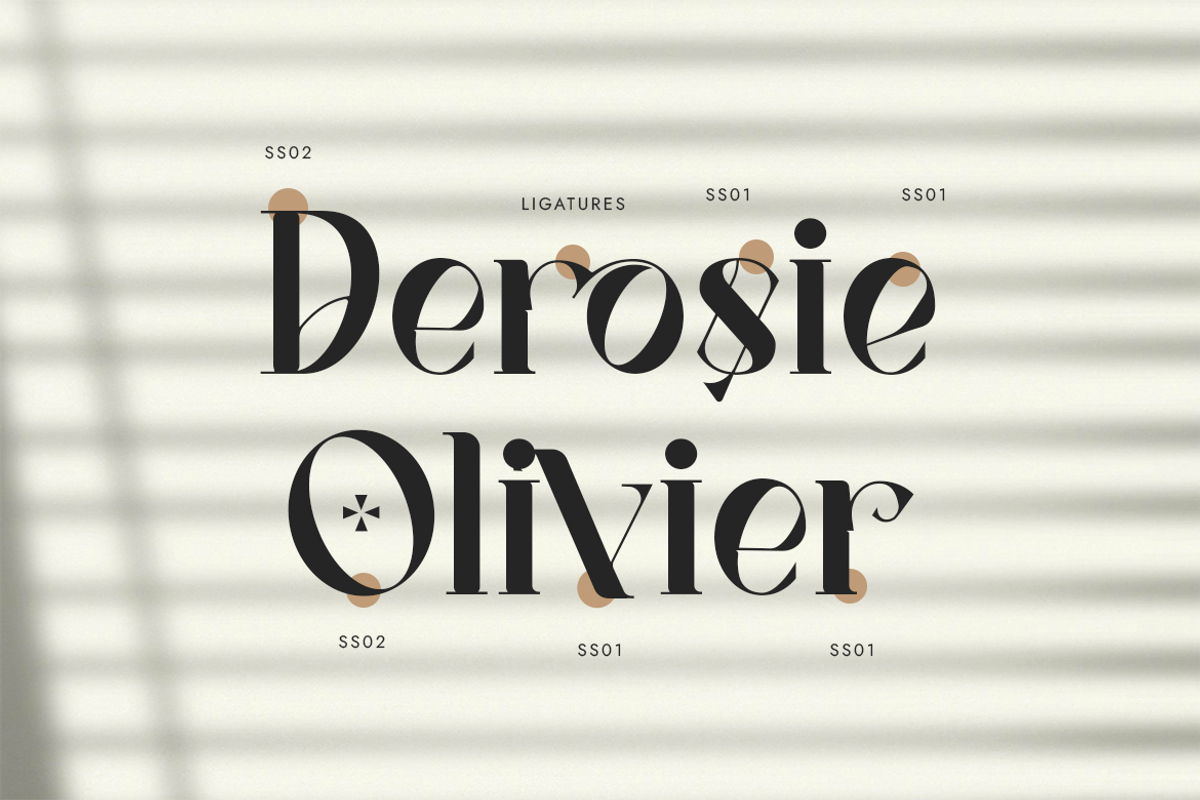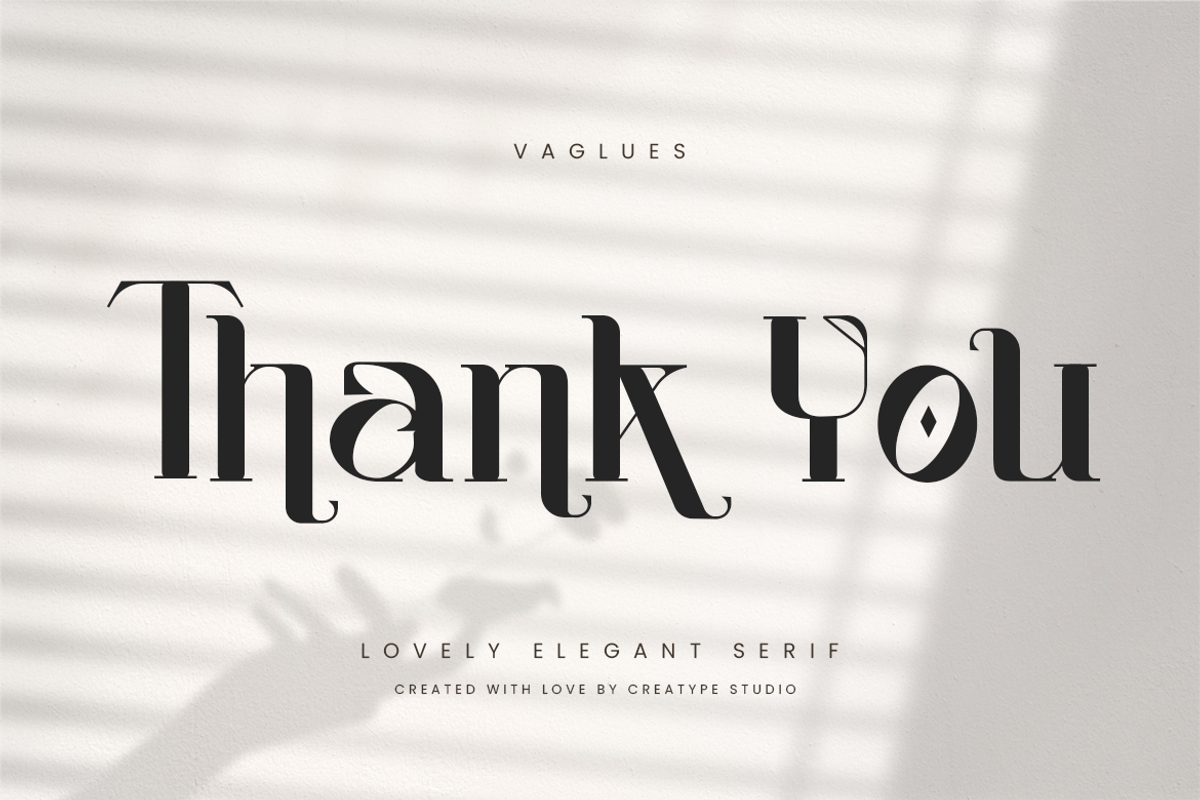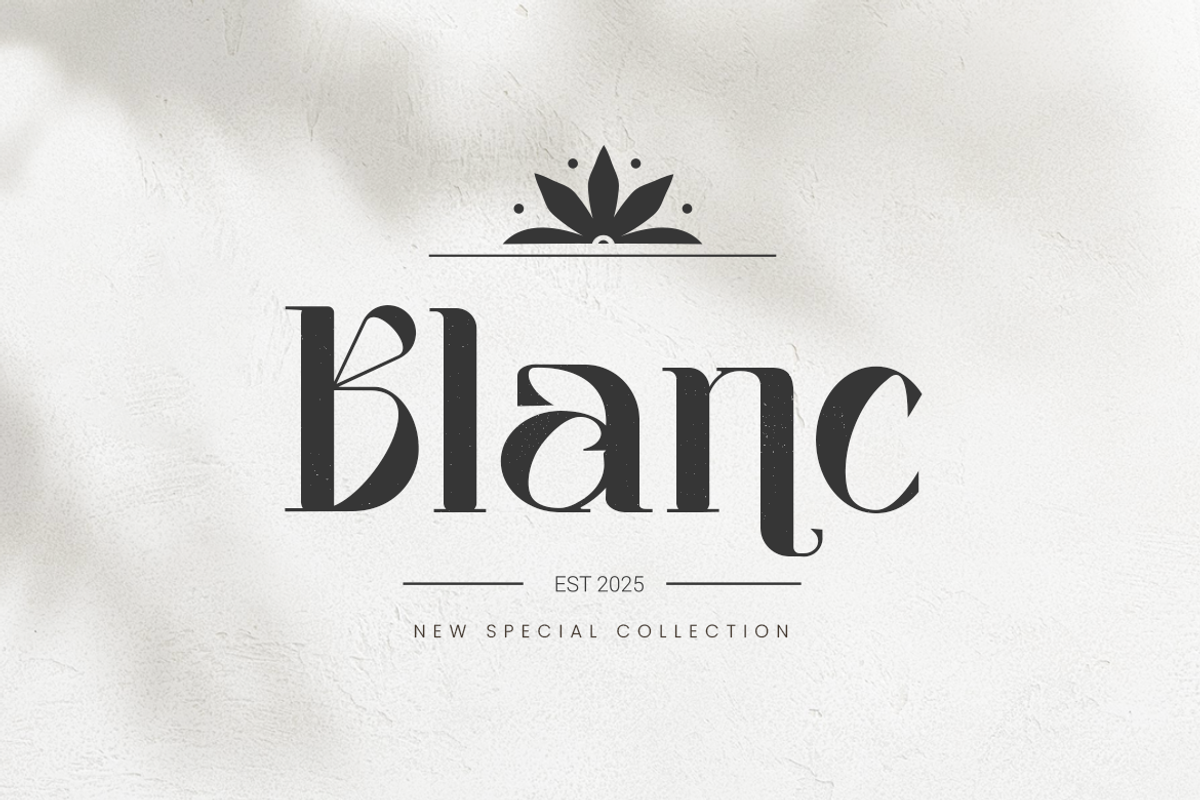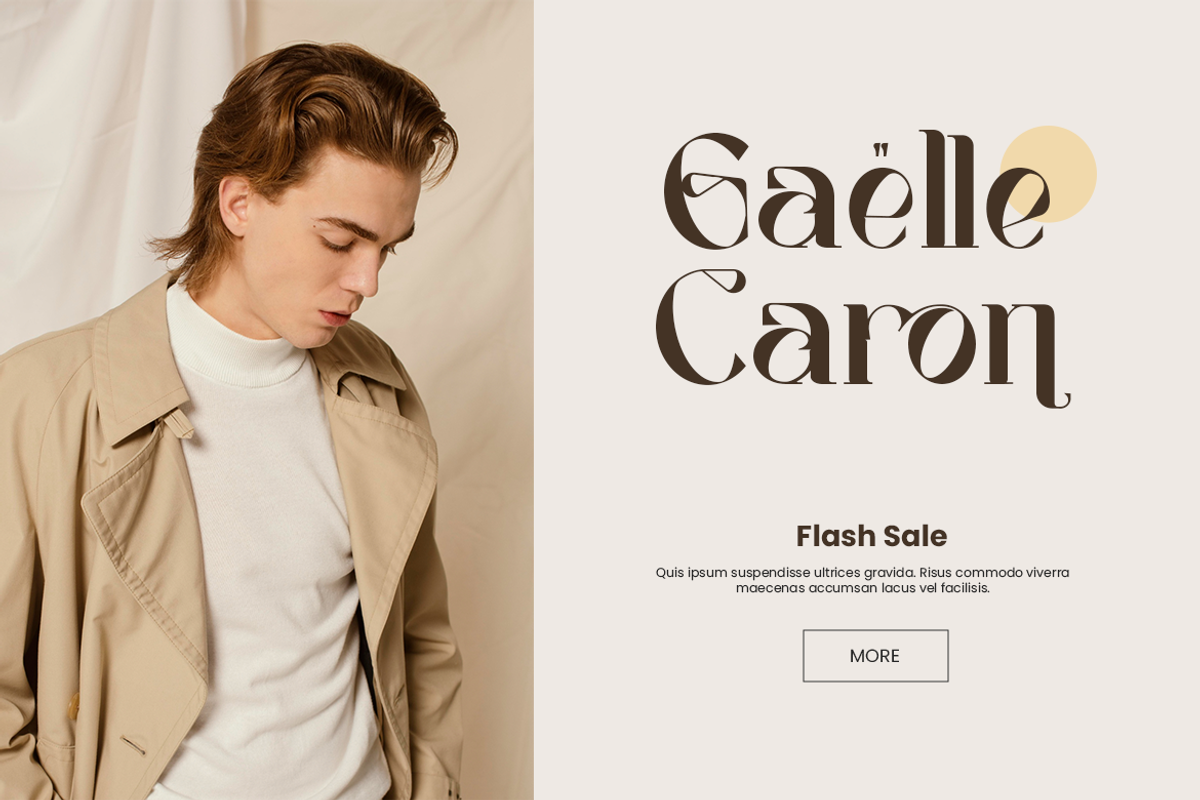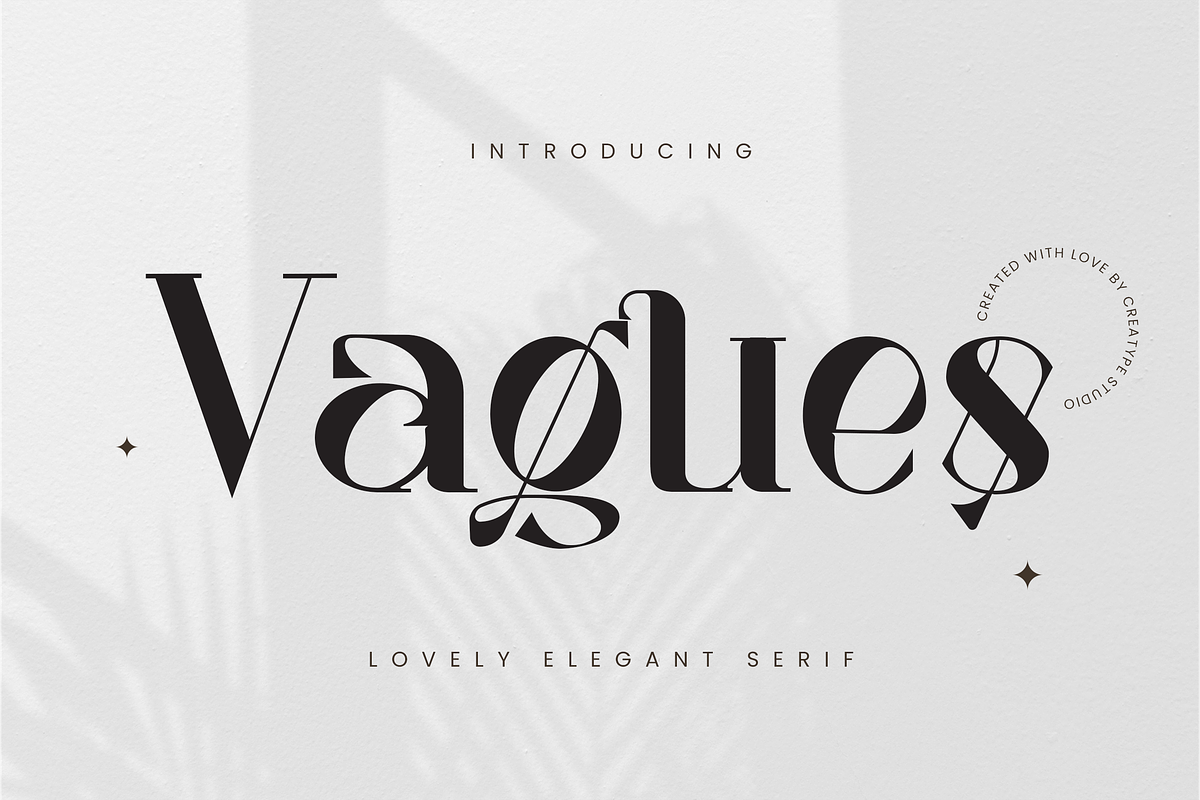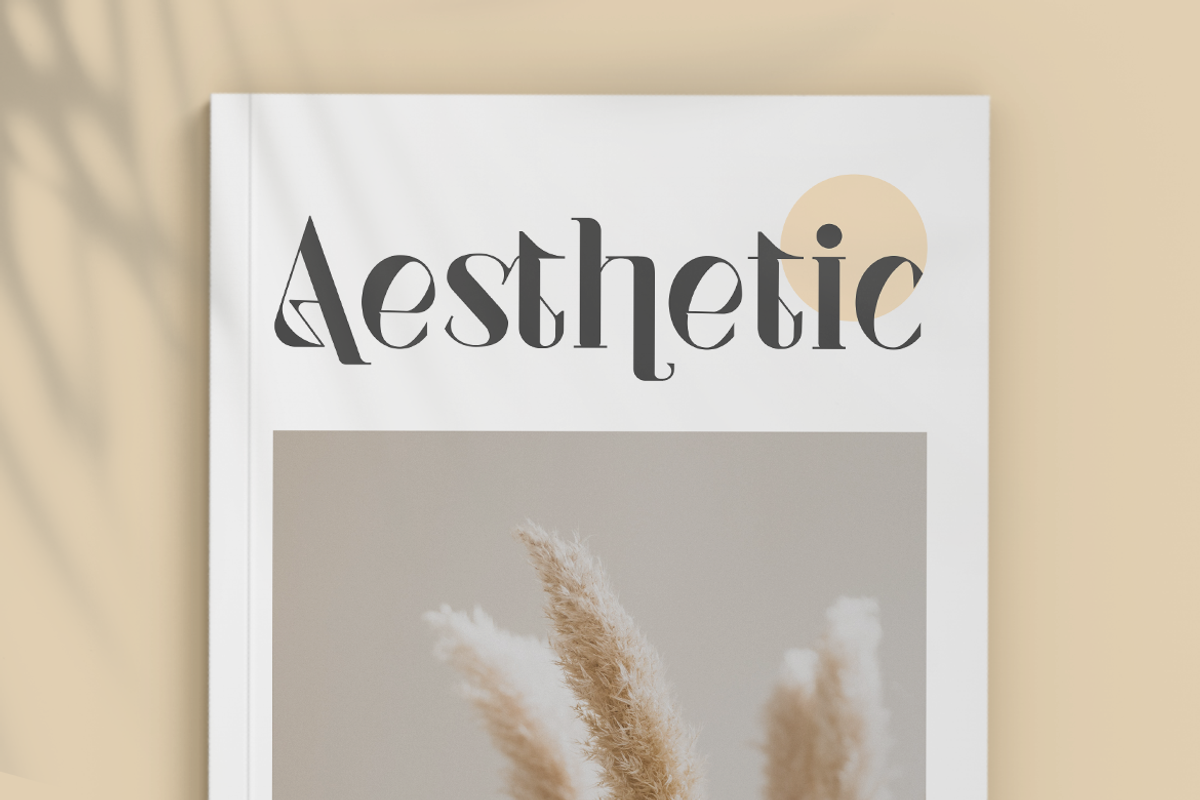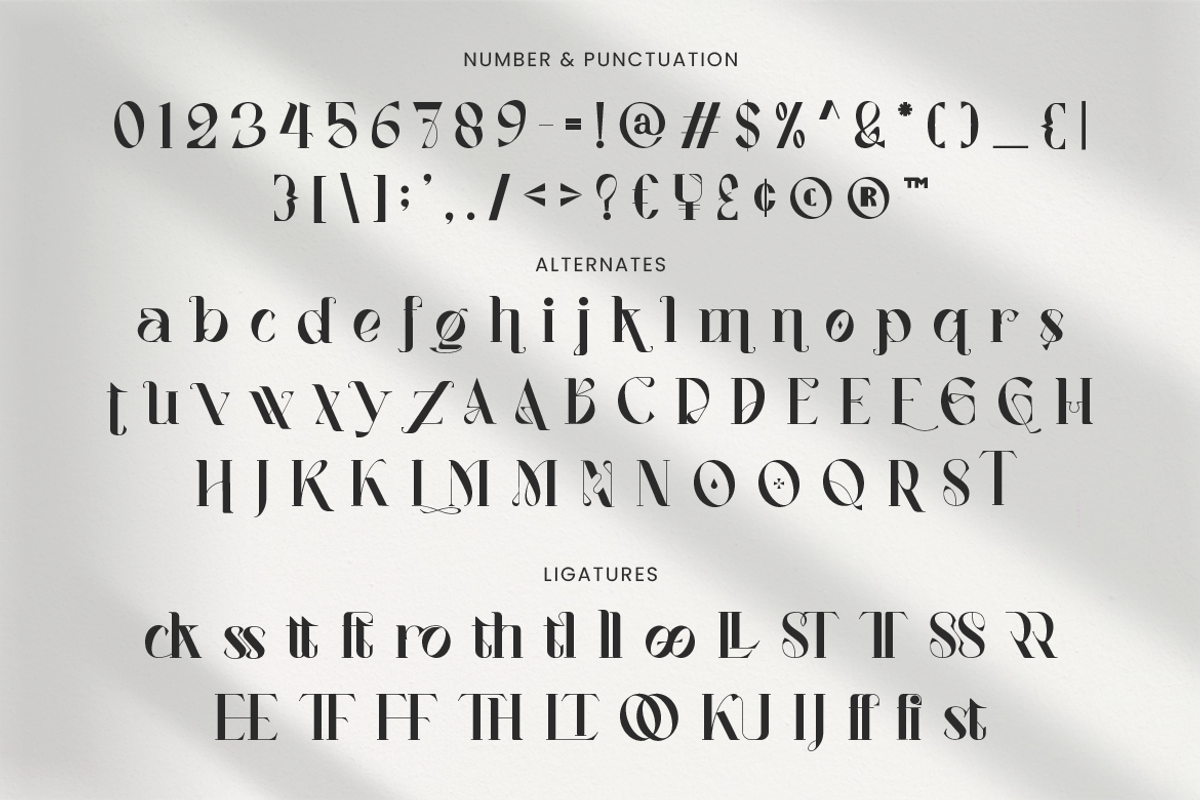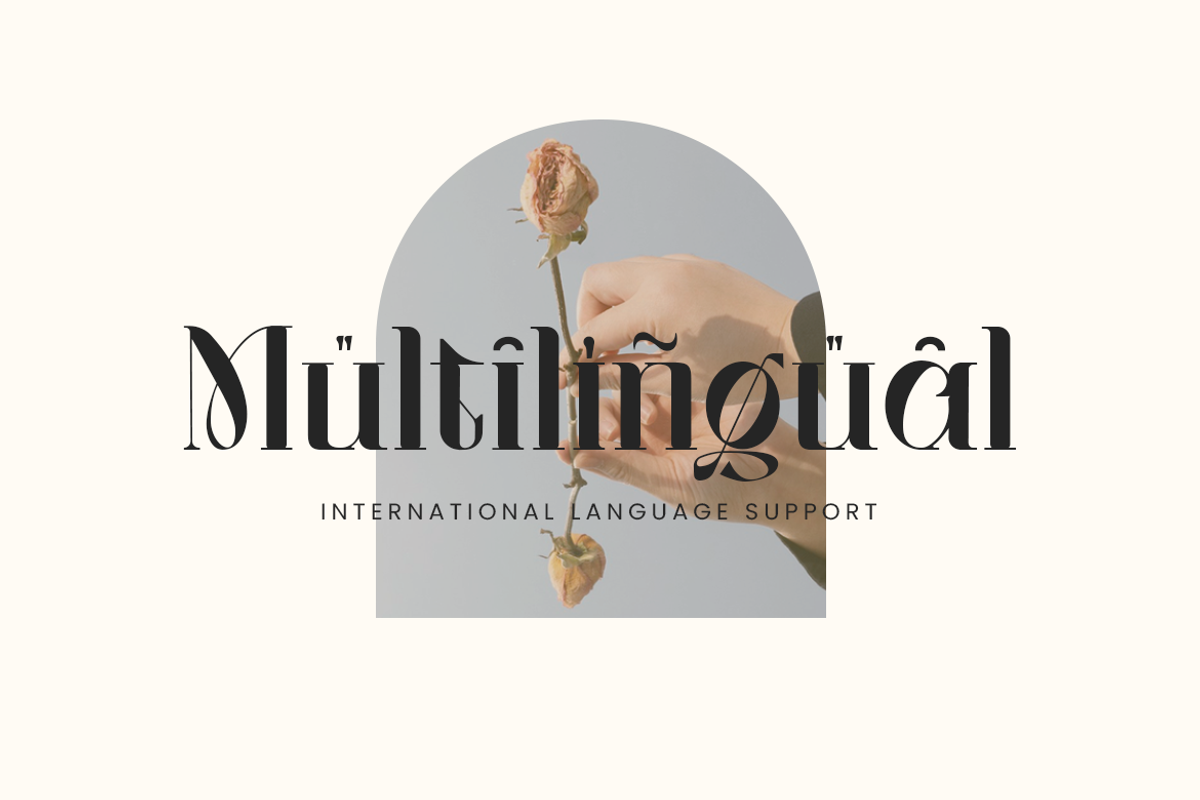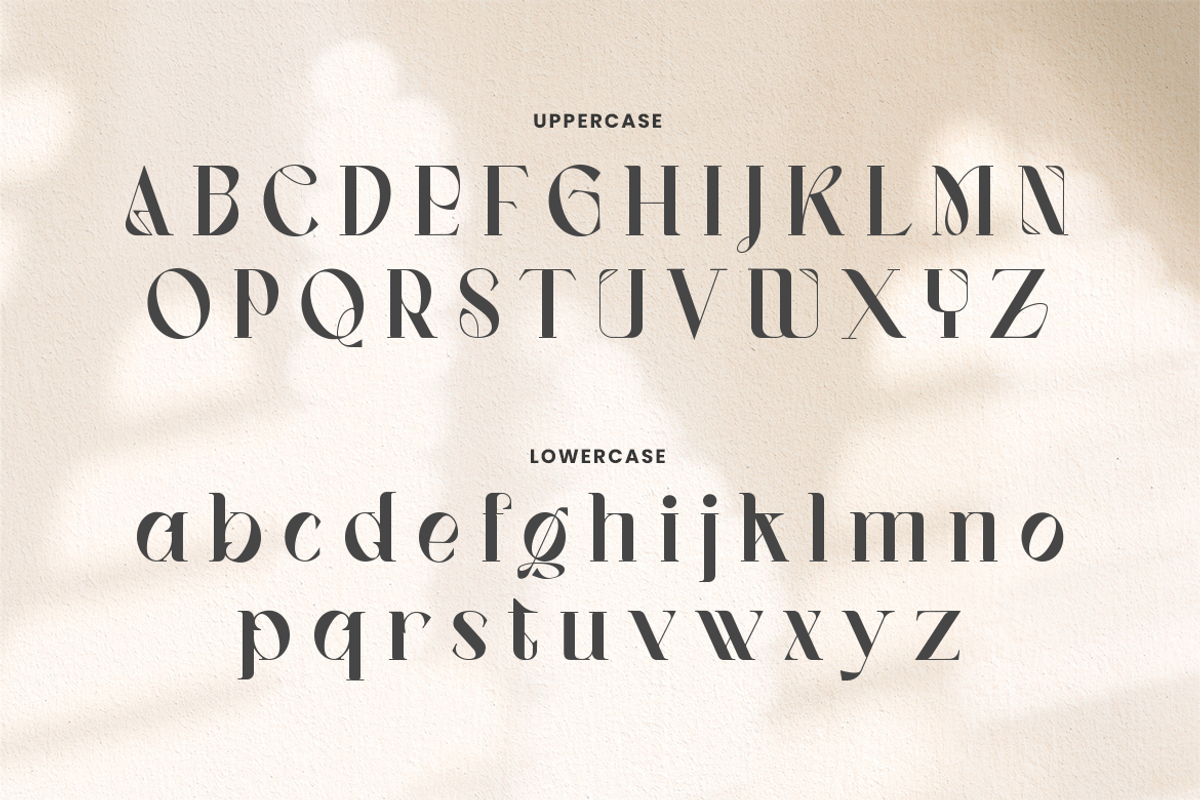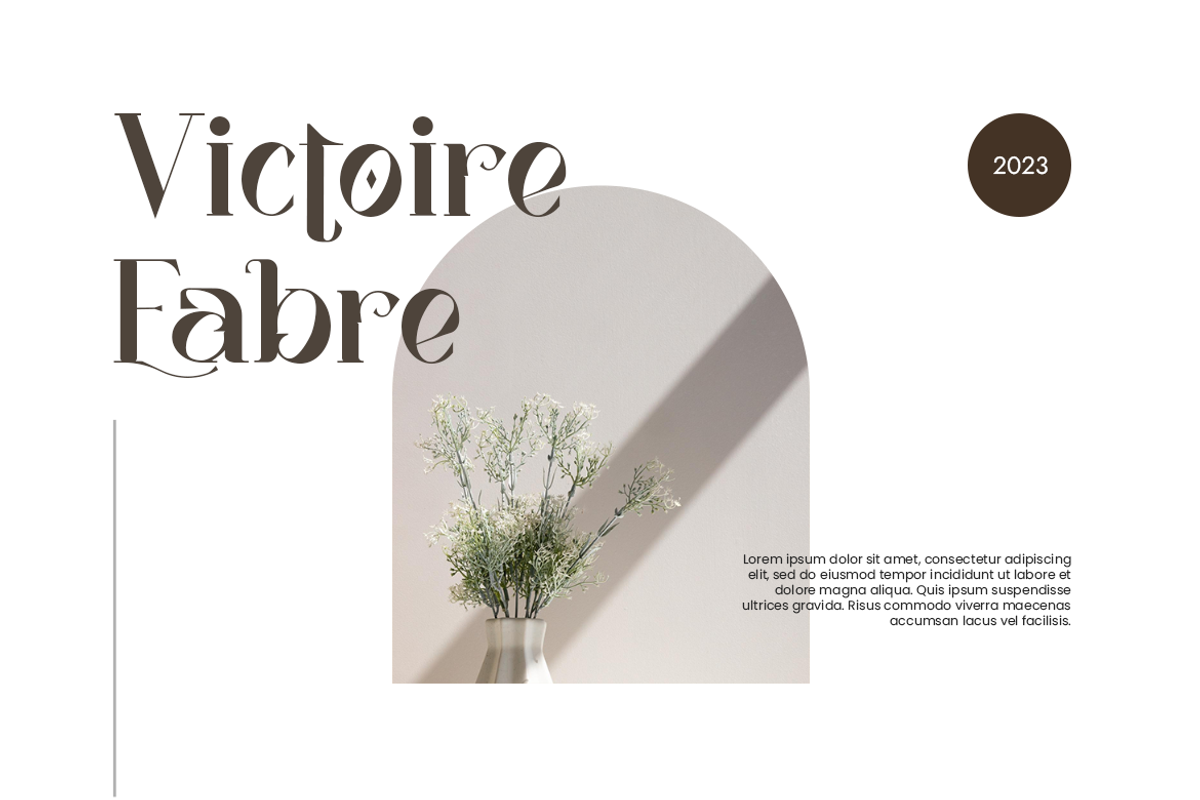
Vagues Elegant Serif
Vagues the Lovely Elegant Serif typeface is the epitome of grace and beauty, with its delicate curves and refined details adding an air of elegance to any design project.
Vagues is perfect for branding projects, logos, wedding designs, social media posts, advertisements, product packaging, product designs, label, photography, watermark, invitation, stationery, and any projects that need handwriting taste.
- Ligature & Alternate
- Fonts include multilingual support for; Afrikaans, Albanian, Czech, Danish, Dutch, English, Estonian, Finnish, French, German, Hungarian, Italian, Latvian, Lithuanian, Norwegian, Polish, Portuguese, Slovak, Slovenian, Spanish, Swedish.